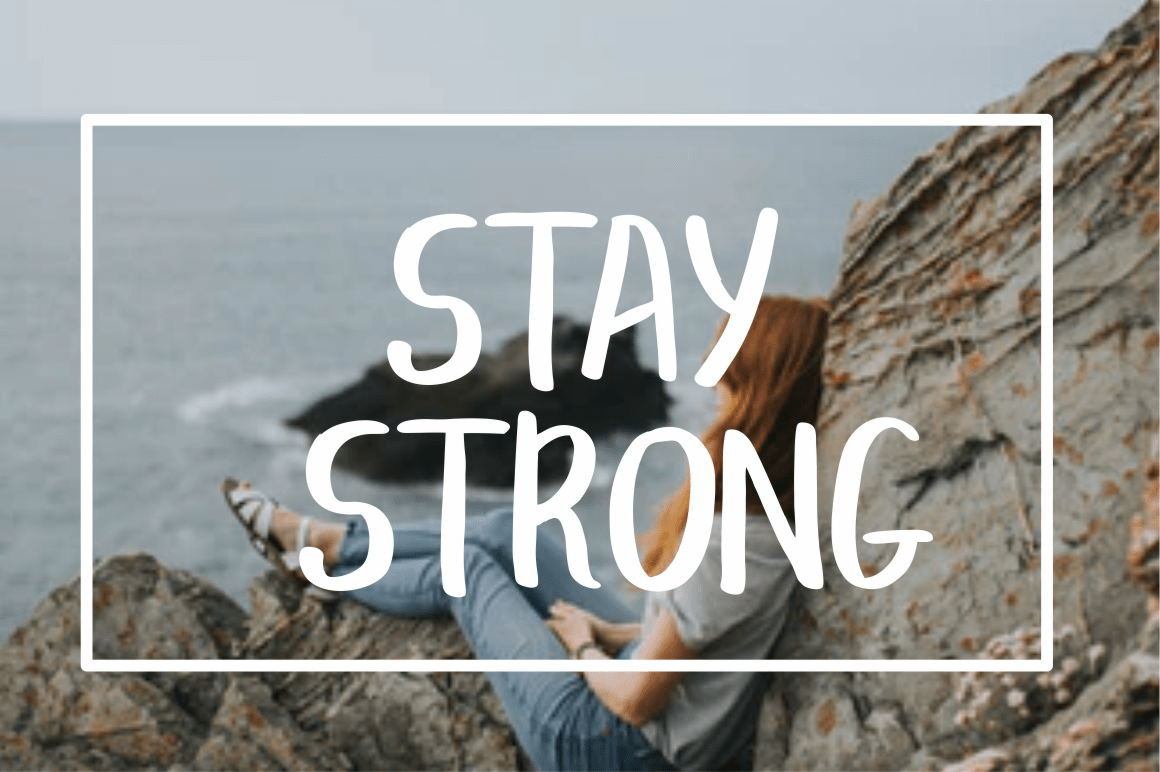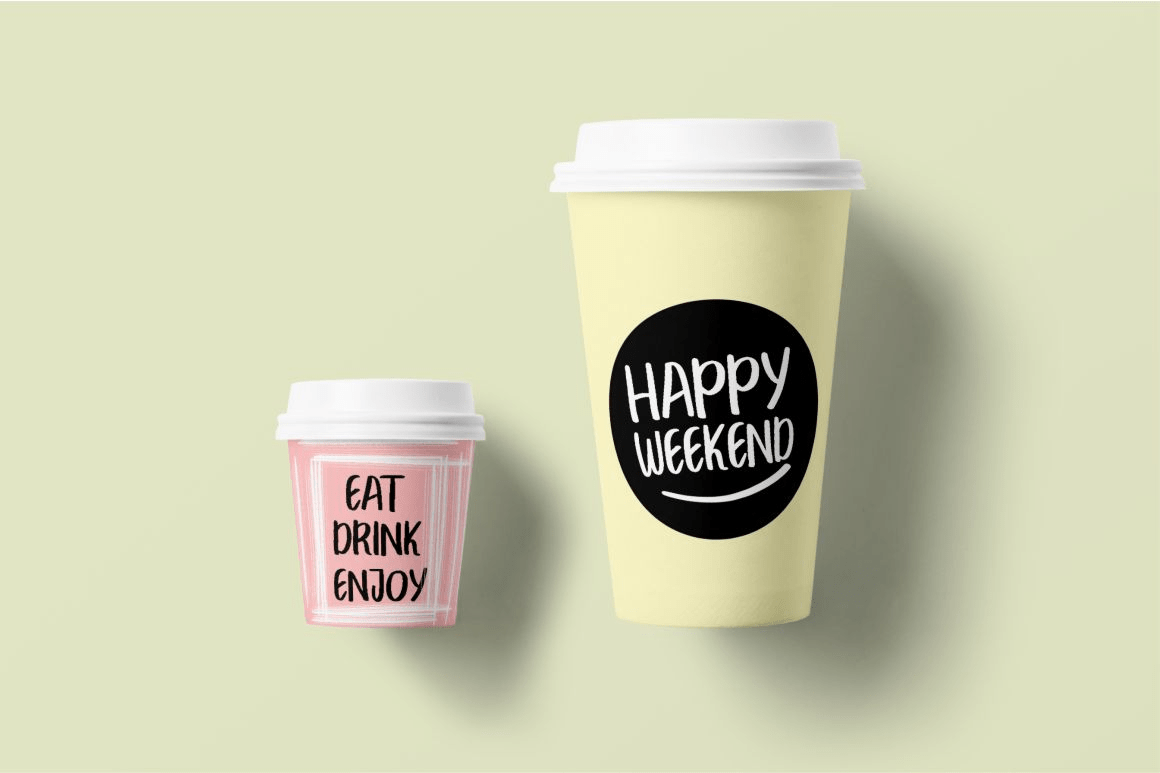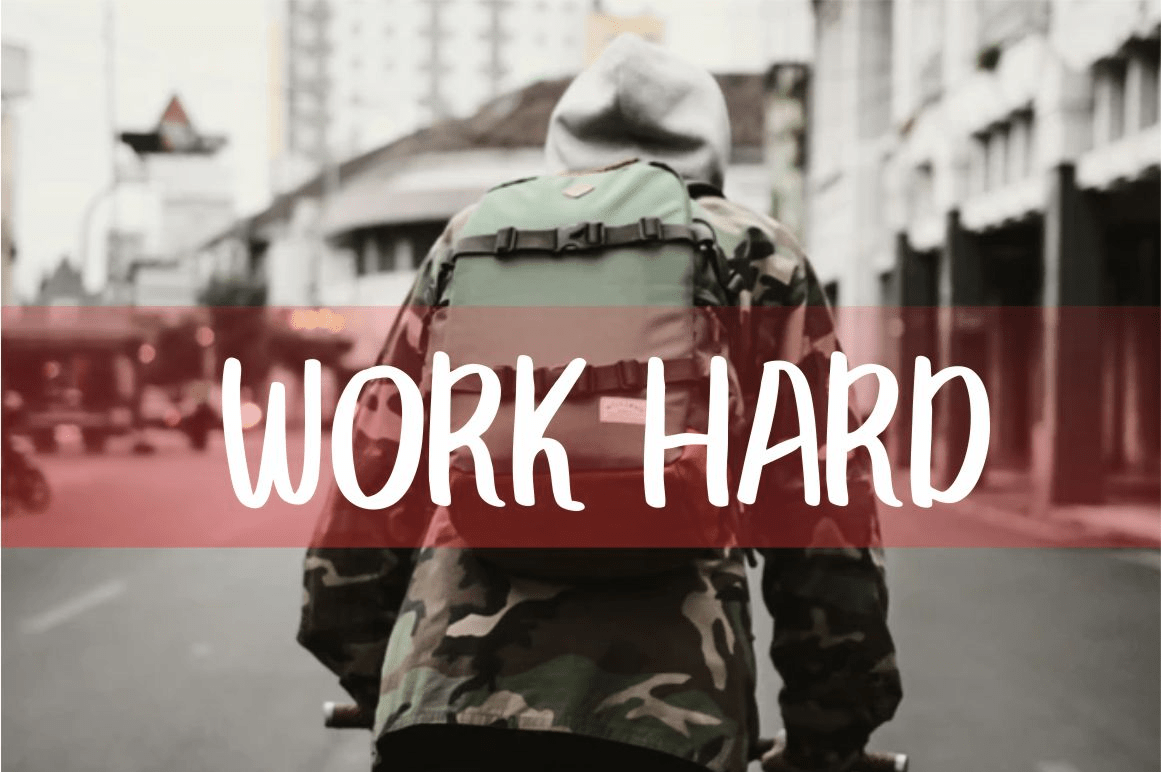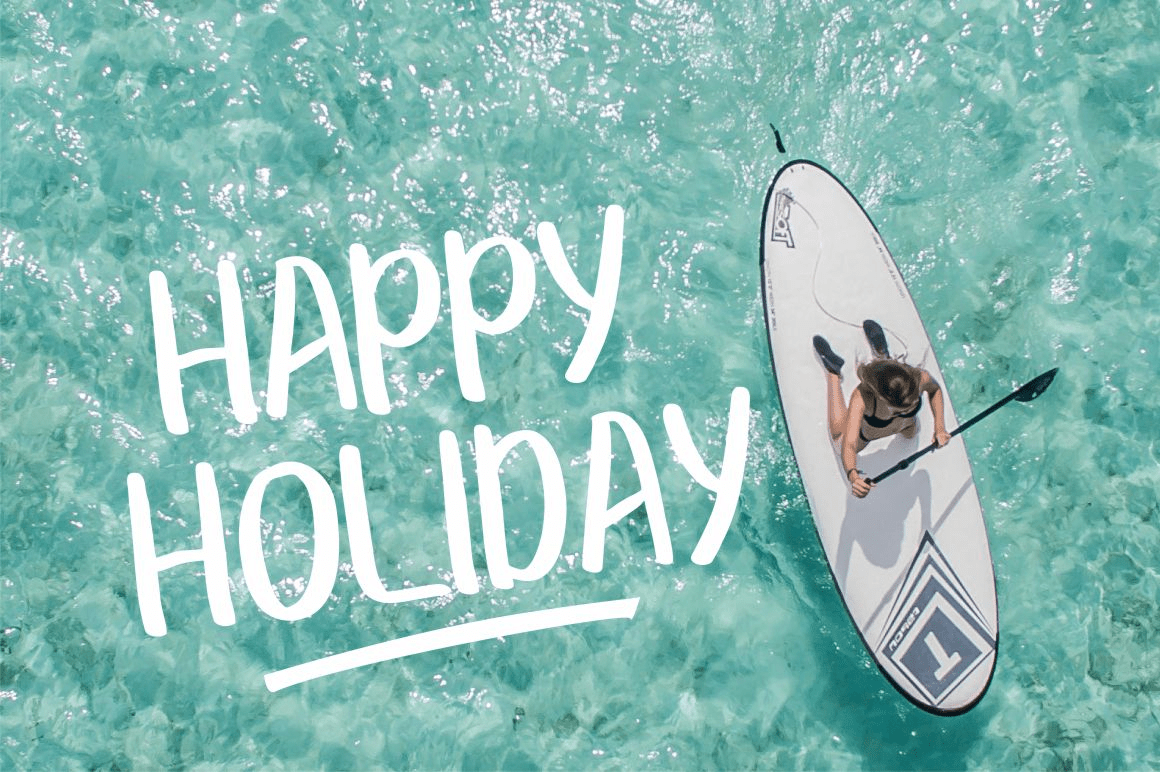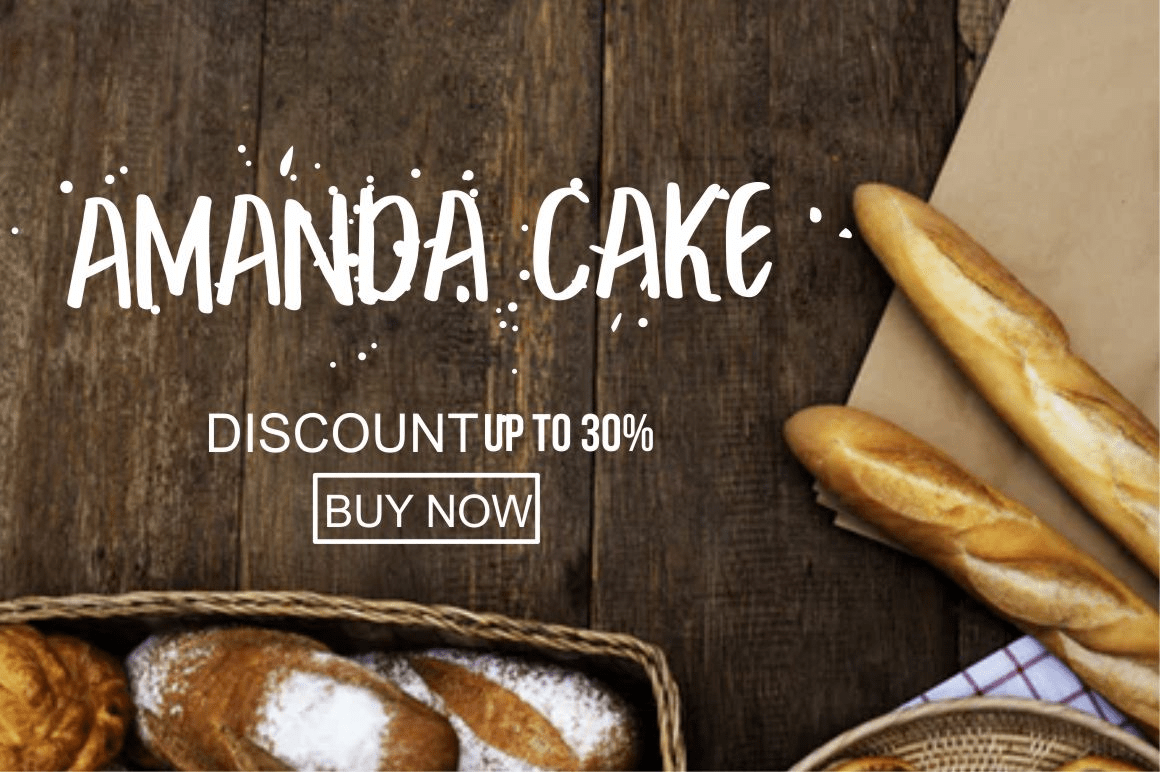
Break Beach
Font Family by Eldertype Studio
Break Beach is a beautiful handmade brush font, with a bold weight perfect for adding some romance and charm to your designs. This script functions most strongly as a display or headline font. suitable for logo, logotype, branding, fashion, label, book cover, t-shirt, instagram post, and other
FEATURES
Basic Latin A-Z and a-z
Numbers
Symbols
glyphs (include Uppercase, Lowercase, Numerals & Punctuations, Stylistic Set, Ligature, Swashes)